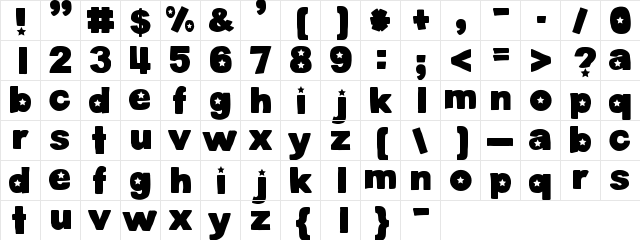
DJB Cutouts-Stars Bold
| Designer | Darcy Baldwin (djbfontography) |
Design Context for DJB Cutouts-Stars Typeface
DJB Cutouts-Stars is a composed and adaptable typeface that performs quietly and consistently across a wide range of design contexts. The heavy weight commands attention and anchors typographic hierarchies.